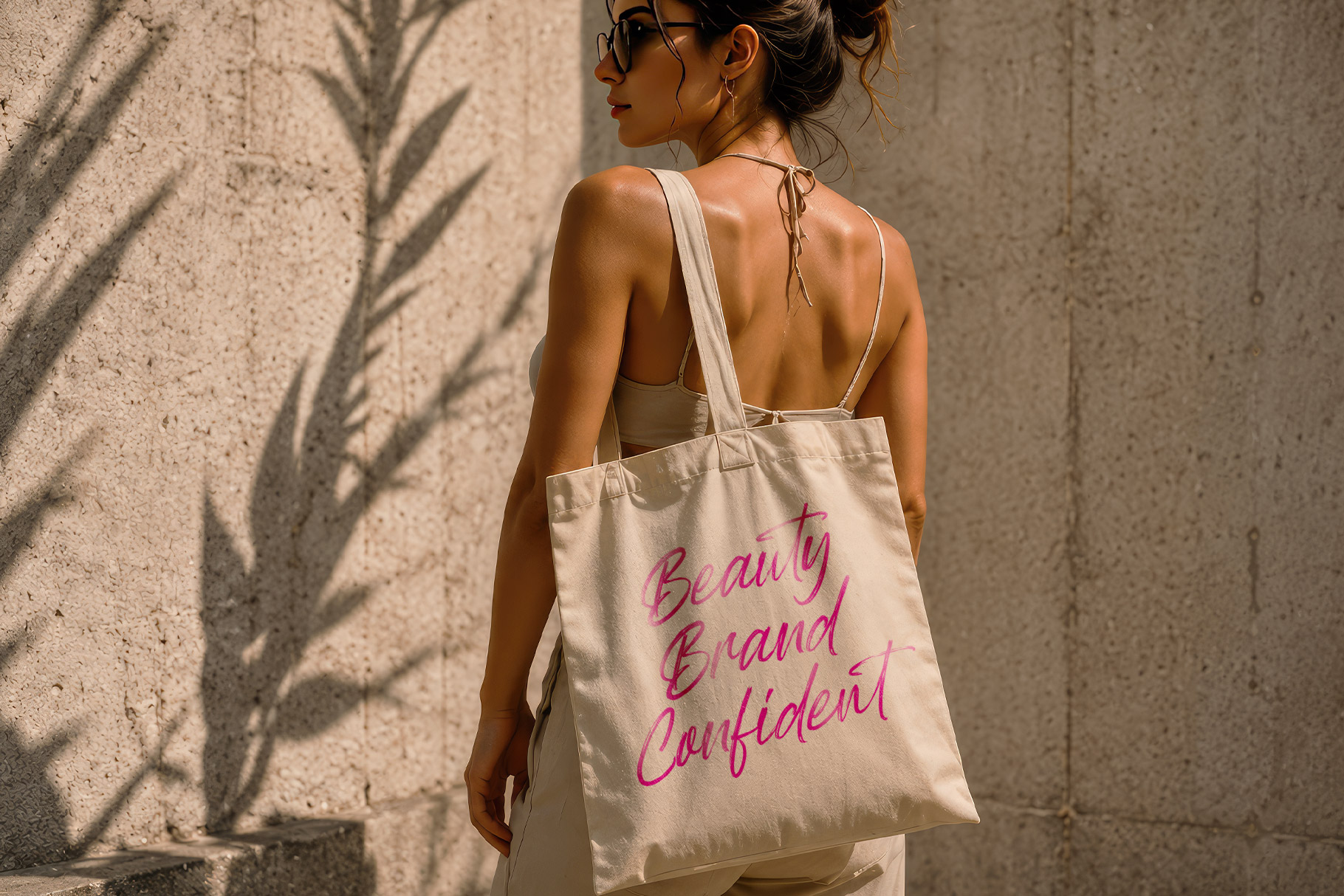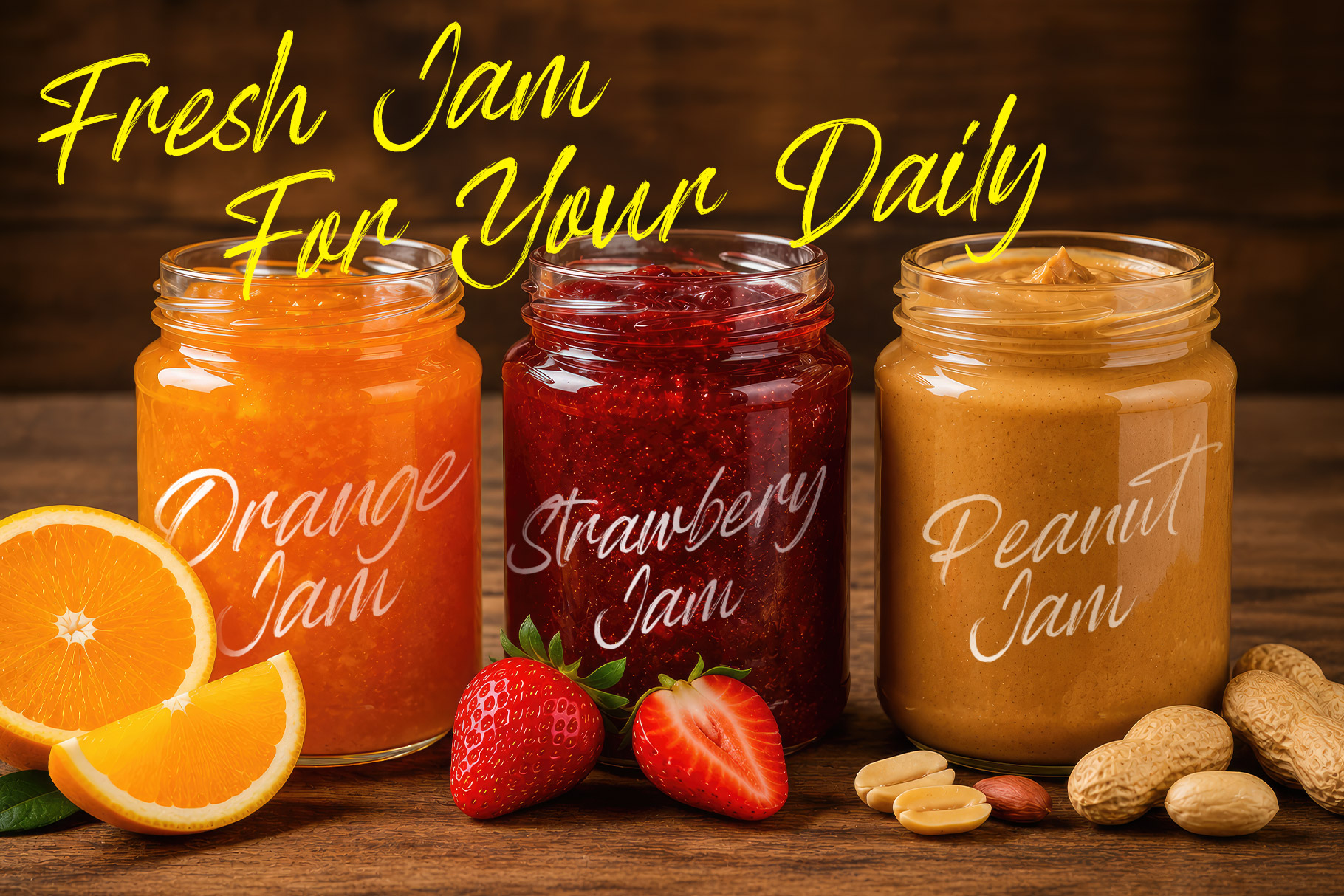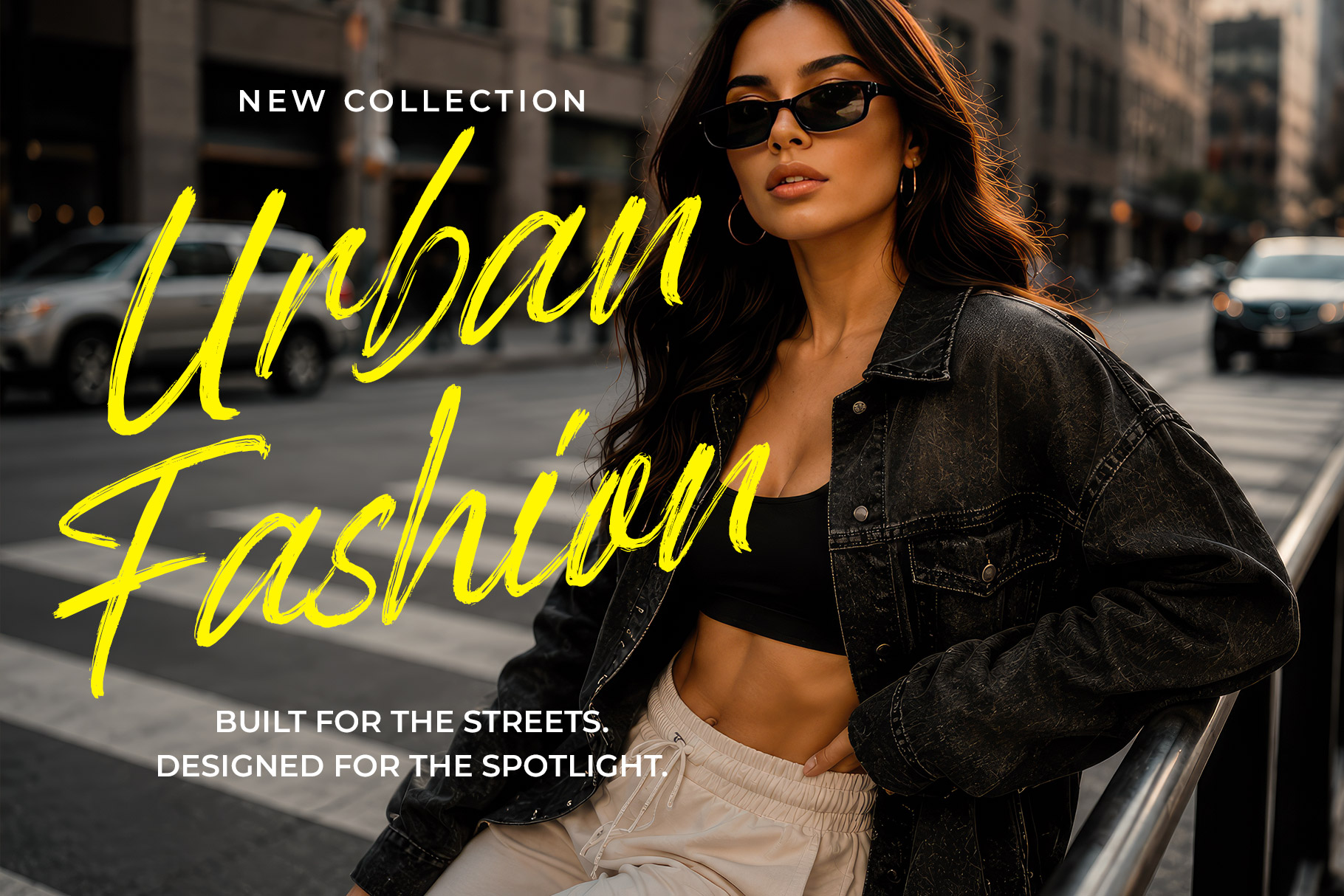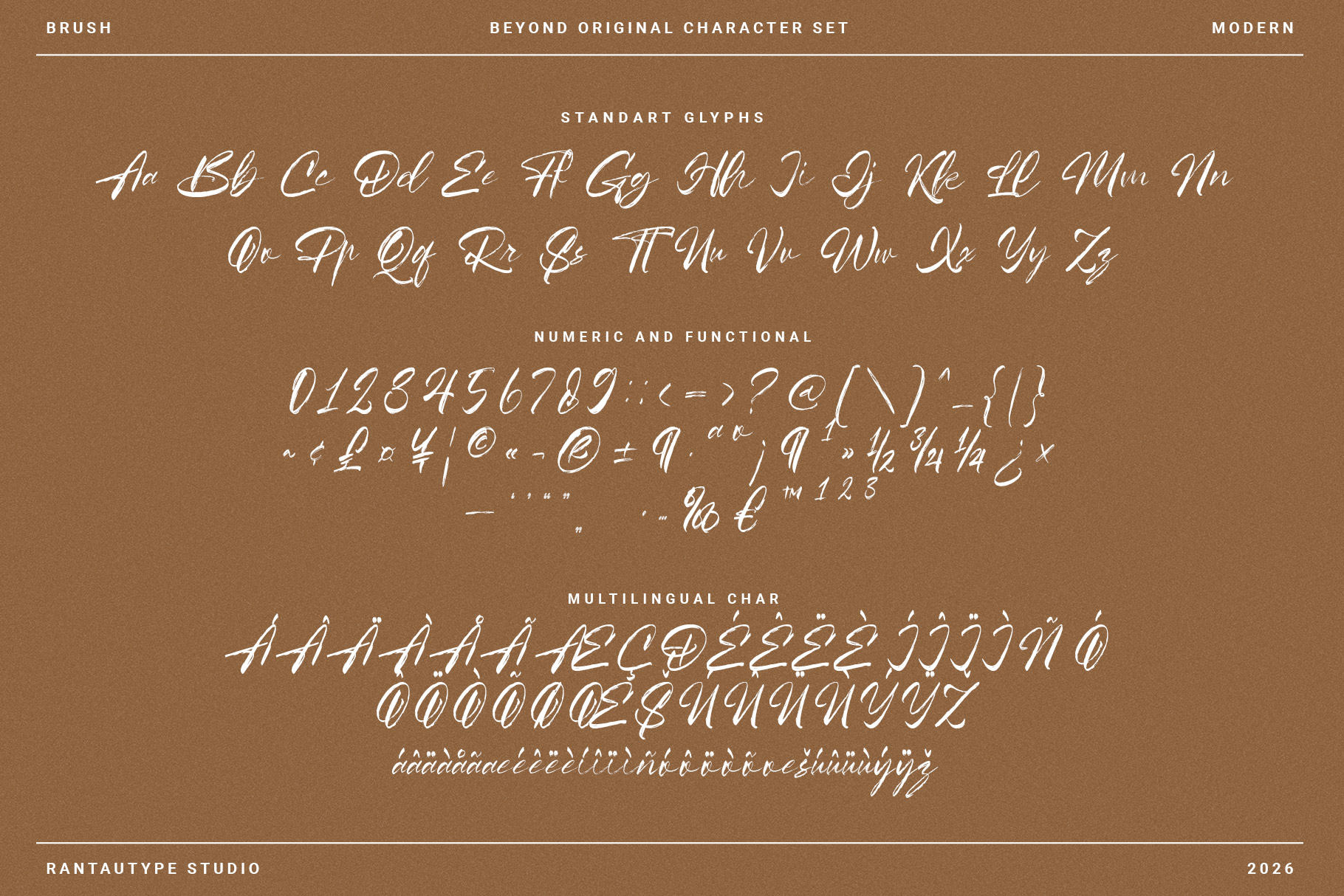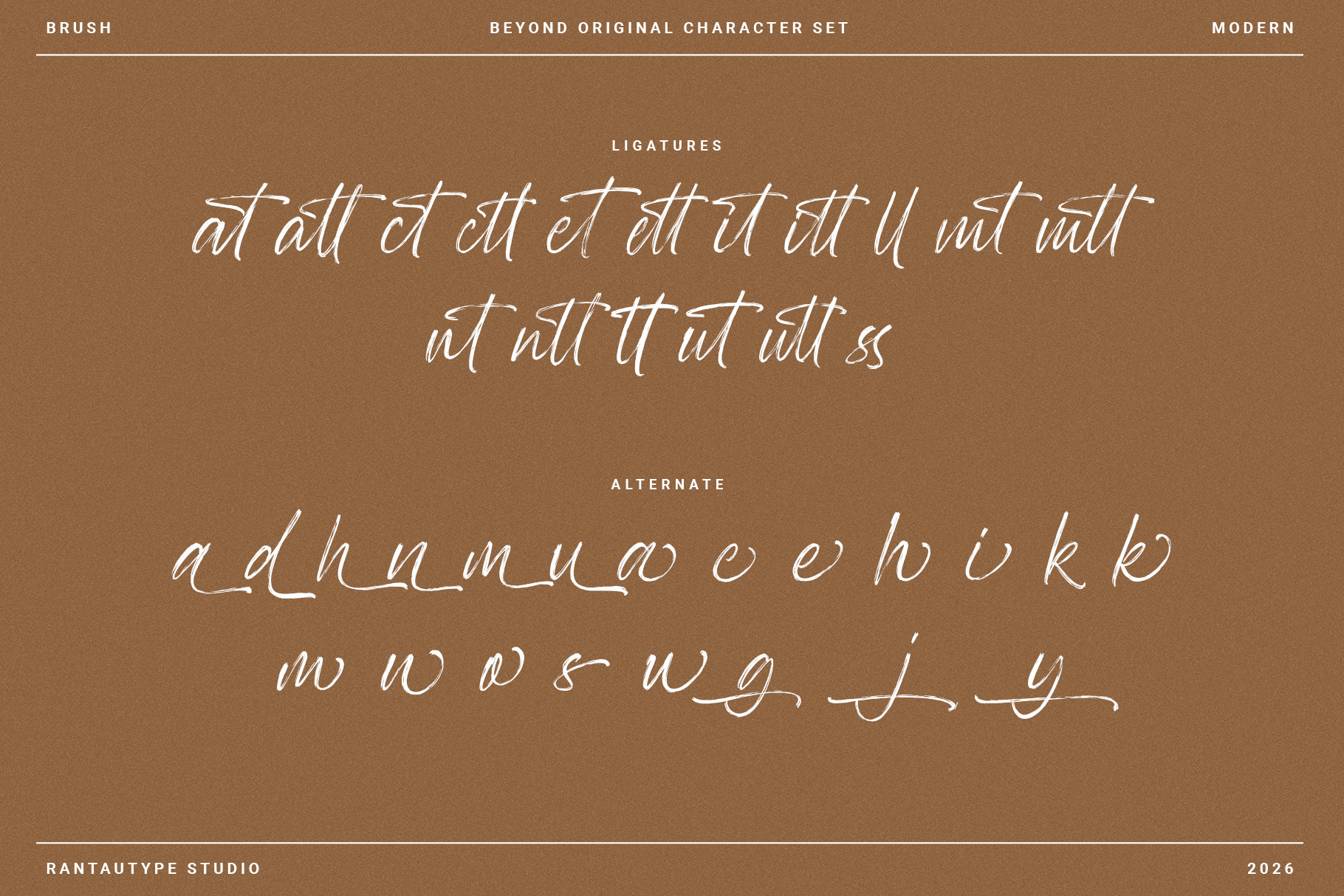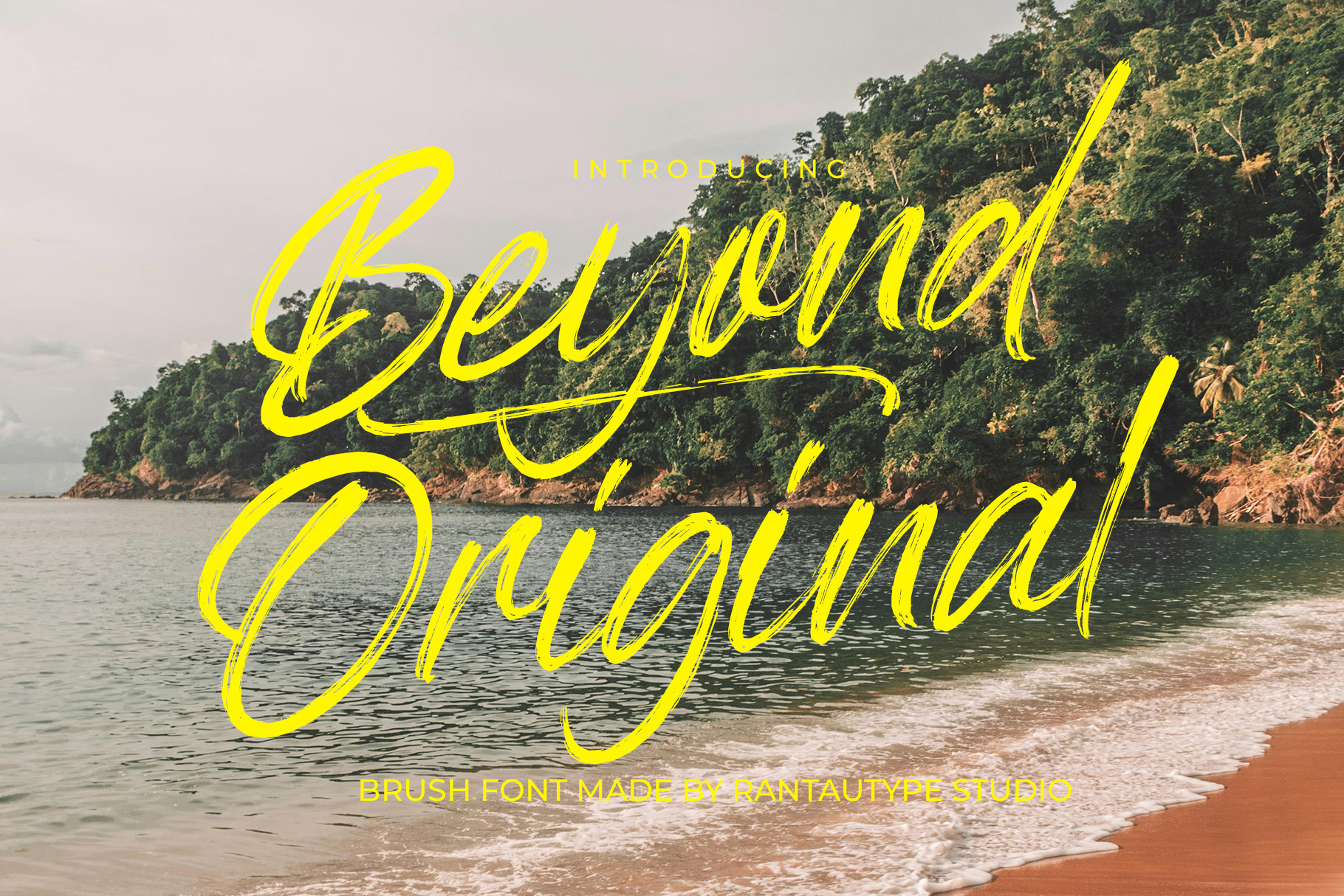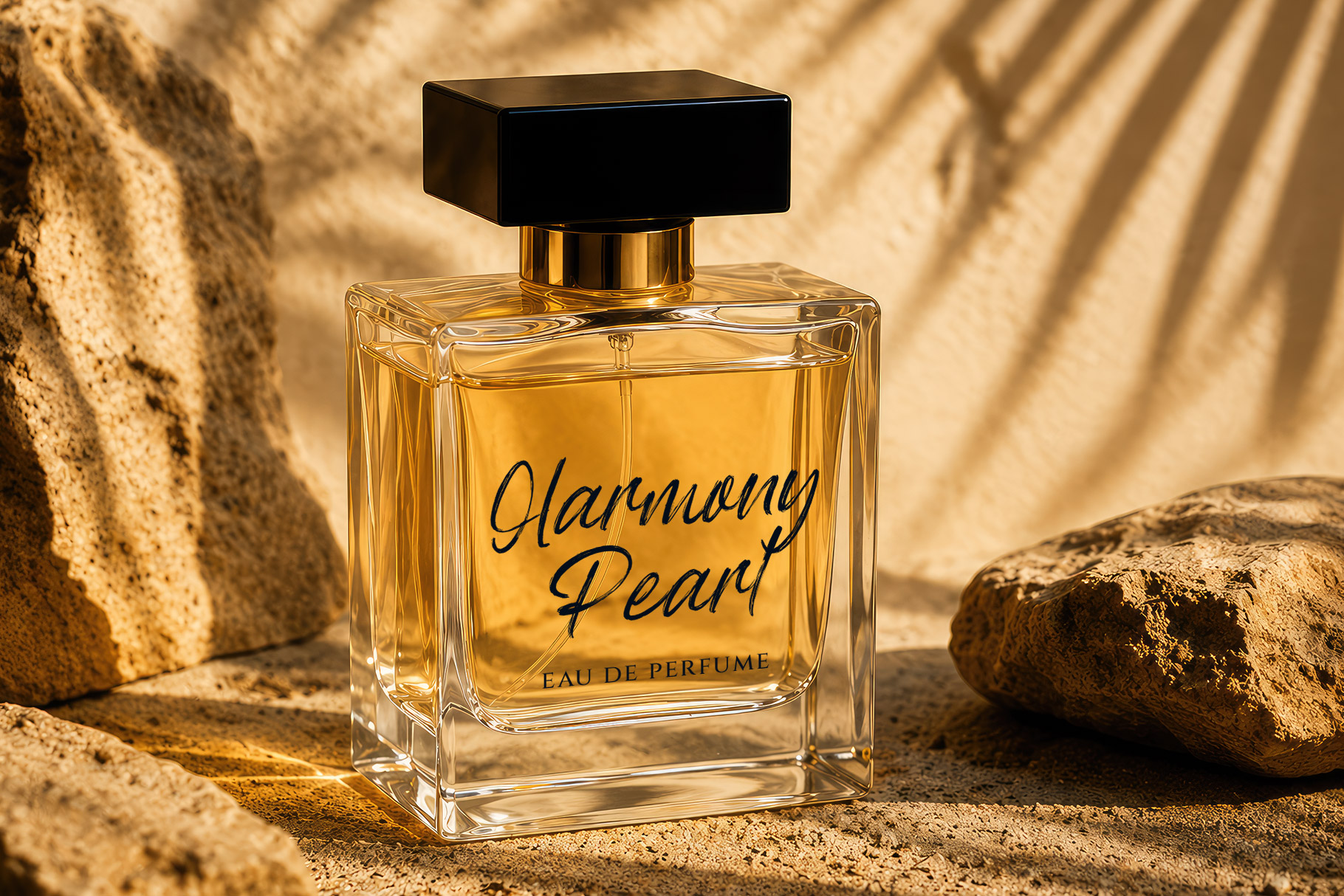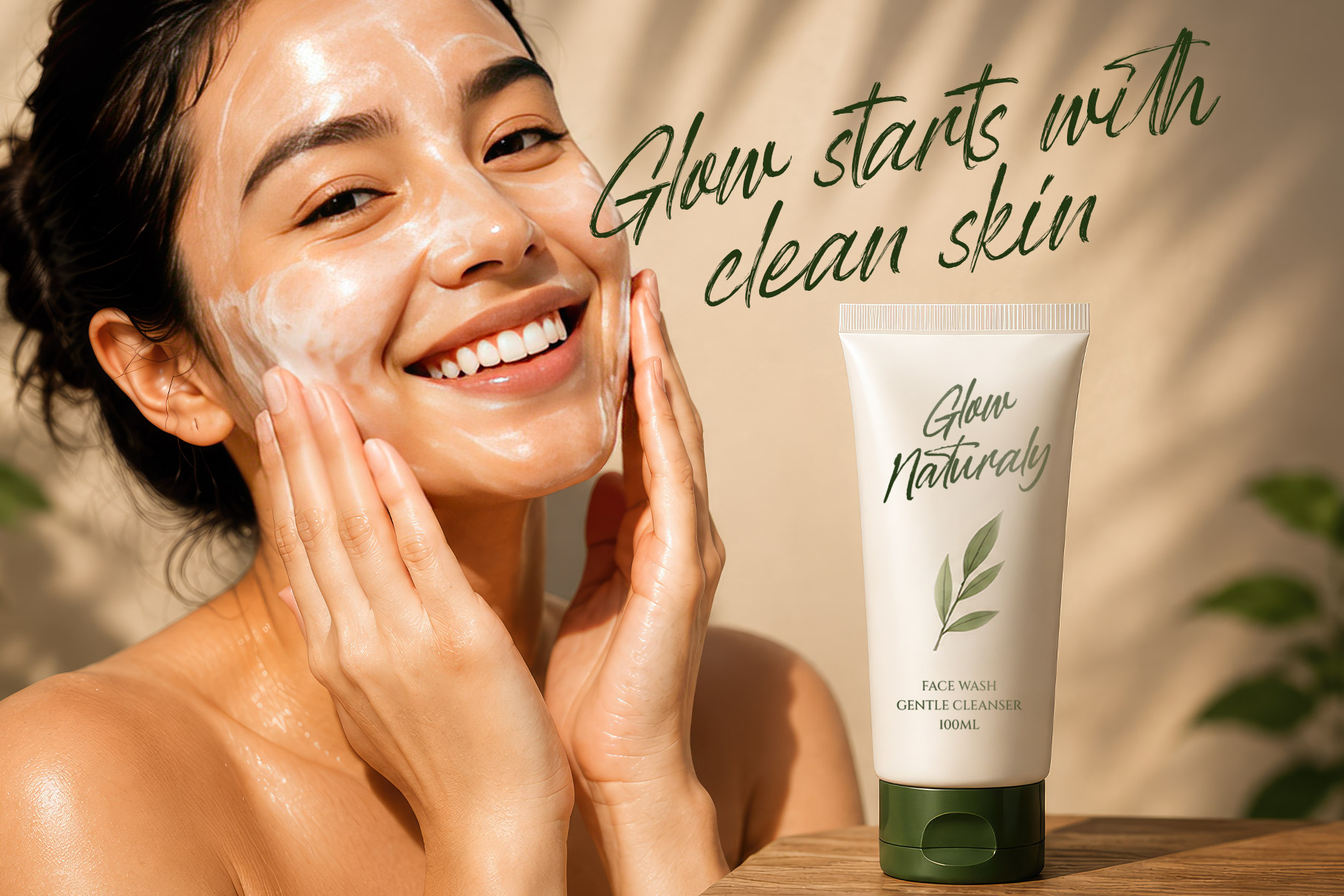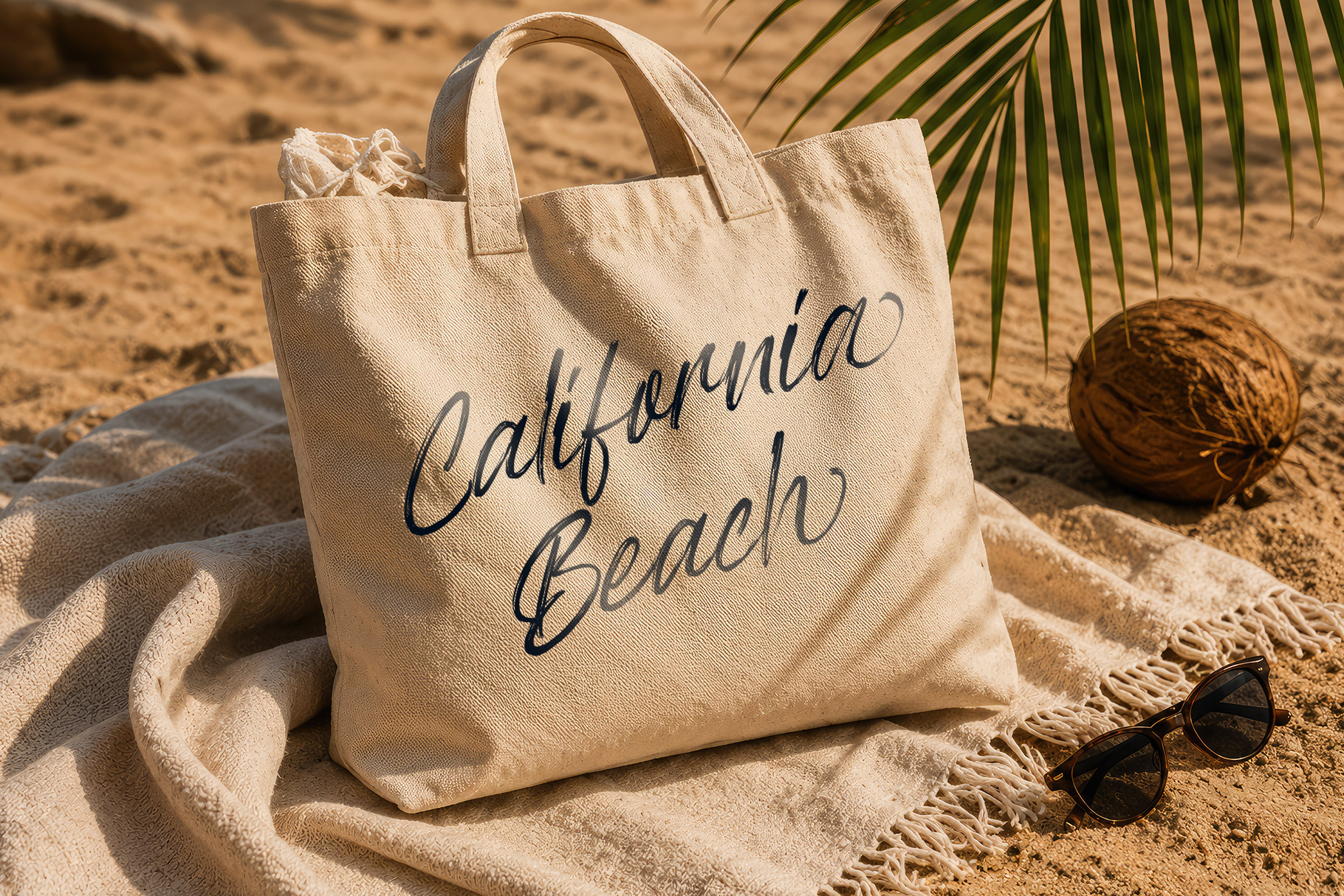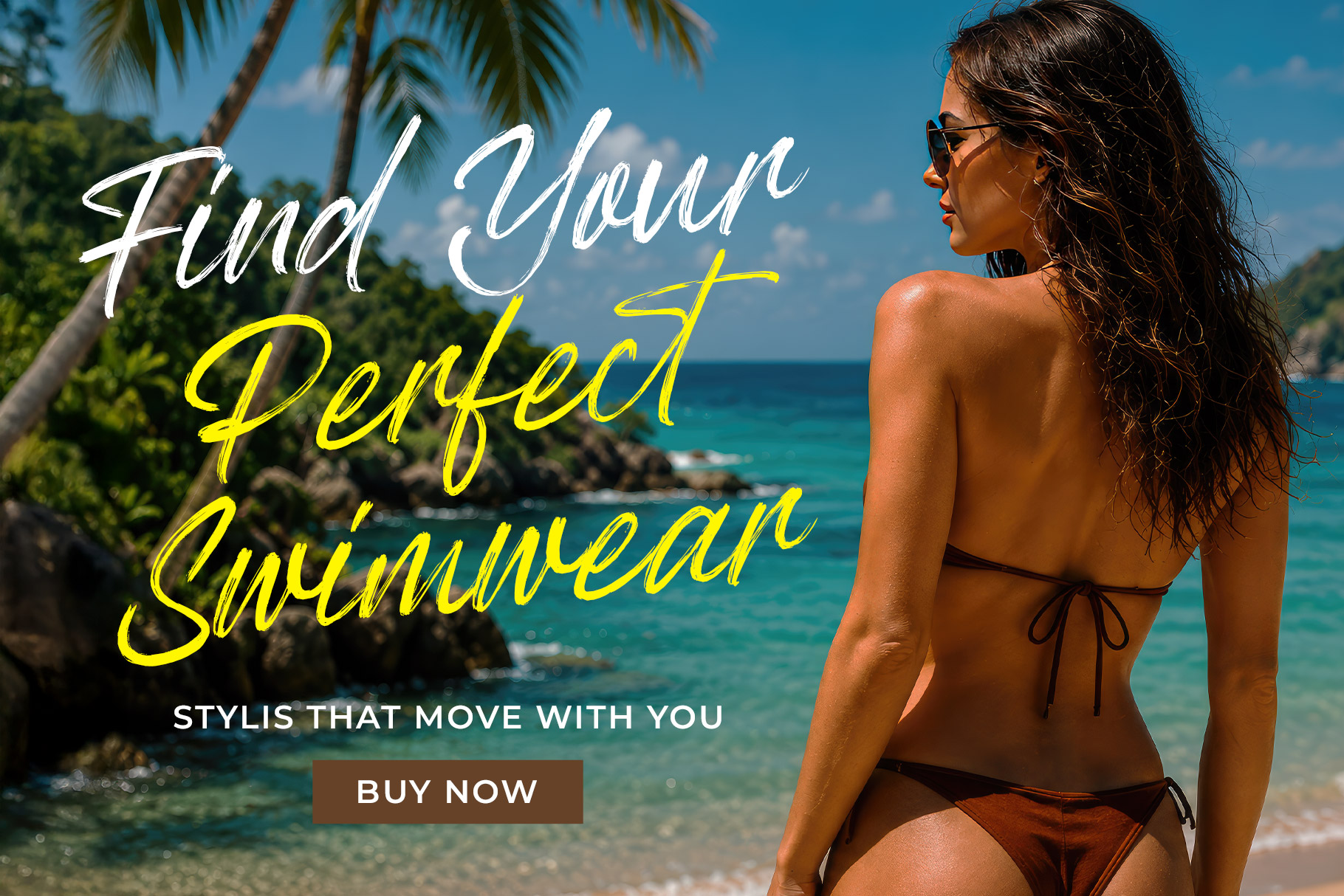
Beyond Original
Beyond Original is a expressive brush script font that captures the essence of creativity, freedom, and artistic confidence. Designed with dynamic hand-painted strokes, this typeface brings an authentic handcrafted feel that instantly adds personality and energy to any design.
Beyond Original s a perfectly choice for any creative endeavor, creating, modern, lifestyle design such as logotype, title, cover, branding, display and magazine, social media posts, advertisements, printed quotes, product packaging, corporate brand, product designs, labels, photography, watermarks, special events and any other project with urban touch.